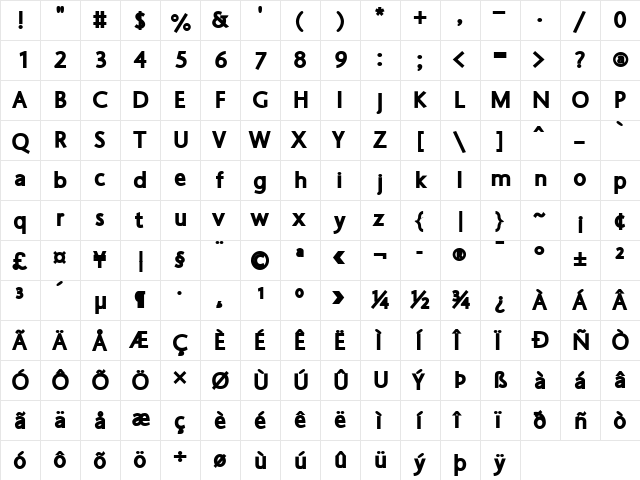
OskiDakelh Bold
| Designer | Chris Harvey |
Design Context for OskiDakelh Typeface
OskiDakelh offers clean, dependable letterforms without strong stylistic allegiance, making it a practical choice for designers who need flexibility. The heavy weight commands attention and anchors typographic hierarchies.